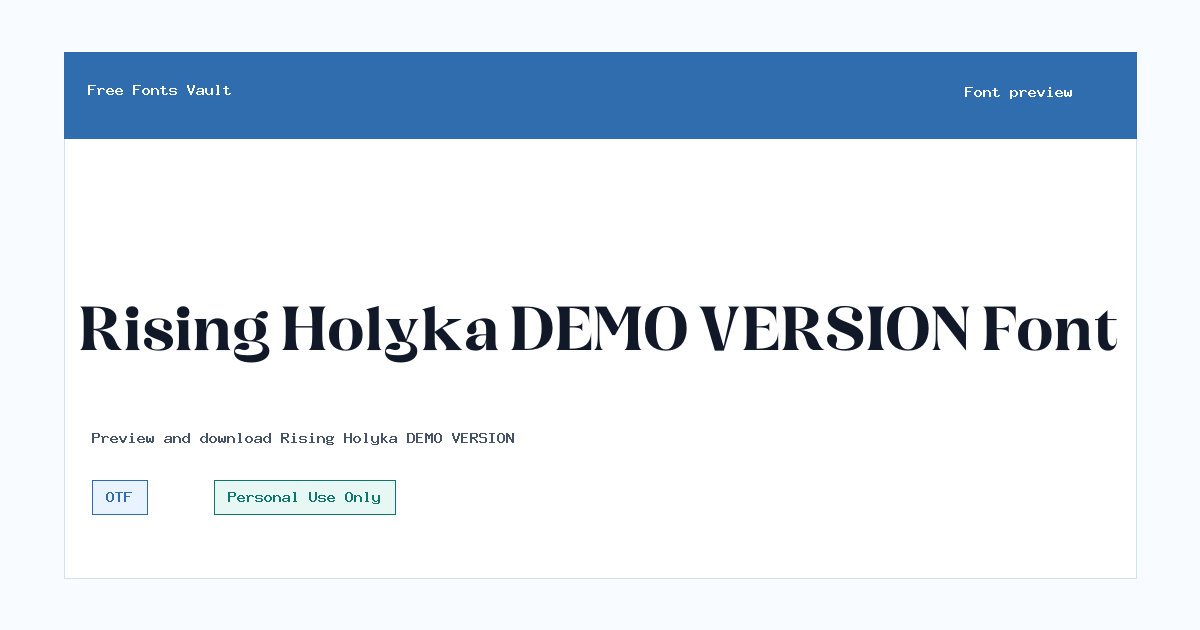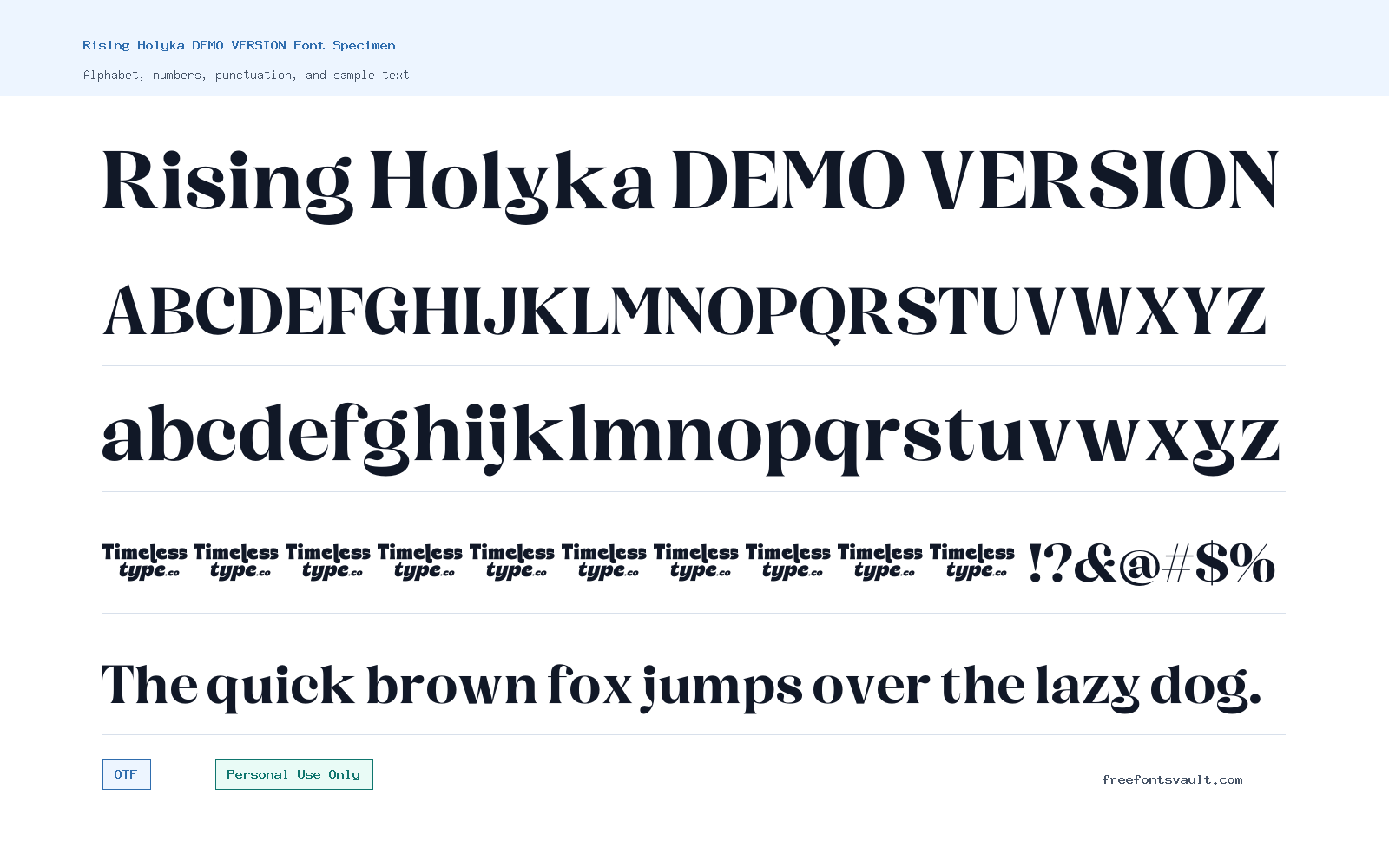
Rising Holyka DEMO VERSION
Rising Holyka DEMO VERSION font.
Rising Holyka DEMO VERSION is a personal-use serif demo font from Heru Utama Putra and TimelessType. It is best approached as a display font to test in previews, mockups, and non-commercial creative drafts before deciding whether it fits a project.
About Rising Holyka DEMO VERSION
Rising Holyka DEMO VERSION is offered as an OTF font file with a regular style and normal weight. The name and license text identify it as a serif font, so it is a better candidate for expressive headlines than for long blocks of body copy. Use the preview tool to check the letter shapes at the exact size you need, especially with words that contain tall letters, descenders, punctuation, and mixed capitals. Demo fonts can sometimes have limited character coverage or reduced features, so it is worth testing your real wording instead of judging only from a short sample.
For design work, Rising Holyka DEMO VERSION can be useful when you need a refined headline direction for a poster draft, invitation concept, logo mockup, social graphic, packaging study, or website hero image. Keep the setting short and give the letters room to breathe. If you are testing it for logo work, try the brand name in uppercase, lowercase, and title case, then check whether the spacing feels even. For web mockups, use it mainly for headings or feature text and pair it with a clean sans serif for navigation, captions, and paragraphs. That contrast helps the serif styling stand out without making the whole layout feel heavy.
- Serif demo font suited to short display text and concept mockups
- Poster titles and event artwork drafts
- Logo and wordmark mockups for personal testing
- Invitation, greeting card, and stationery concepts
- Website hero heading mockups
- Packaging or label concept exploration
Use Rising Holyka DEMO VERSION for short, prominent text rather than dense paragraphs. Test your actual words in the preview, check spacing around difficult letter pairs, and pair it with a simple sans serif if the design also needs readable body text. For logos, posters, and web mockups, export test layouts at the final size to make sure the serif details stay clear.
What kind of projects is this font good for?
It is most practical for short display uses such as poster titles, logo mockups, invitations, social graphics, packaging concepts, and website hero headings.
Is it suitable for body text?
It is better to test it as a display font first. For long reading, pair it with a simpler text font and keep Rising Holyka DEMO VERSION for headings or accent text.